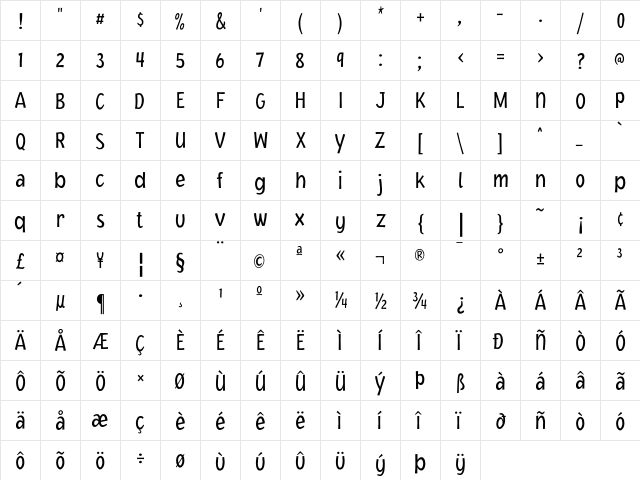
JacobyCondICG Light Font Preview
Design Context for JacobyCondICG Typeface
JacobyCondICG takes a measured approach to typography — its balanced proportions and neutral character make it a reliable workhorse for both digital and print work. Its slender proportions lend an understated elegance to any composition. The condensed width makes it efficient for tight spaces without sacrificing legibility.